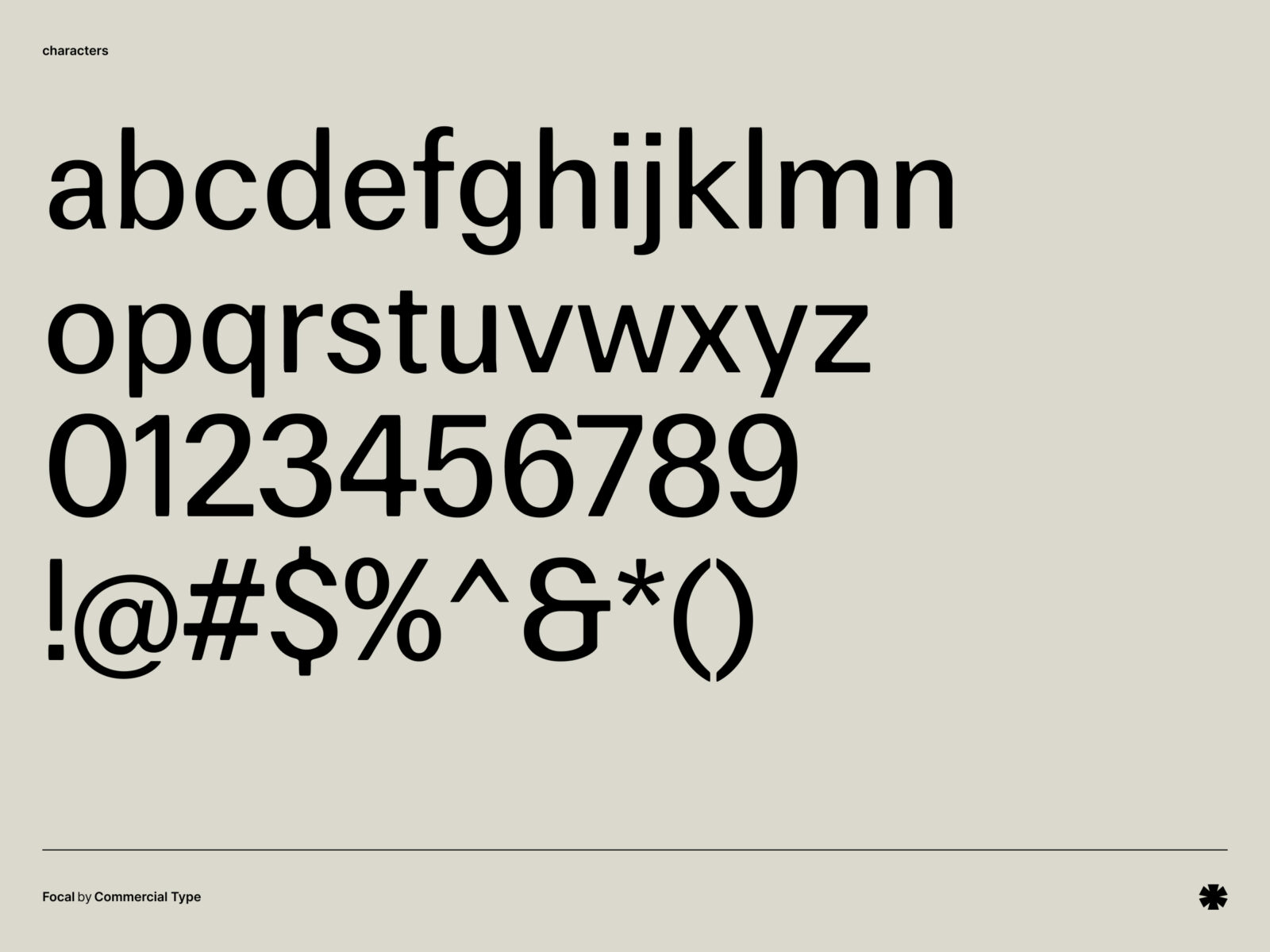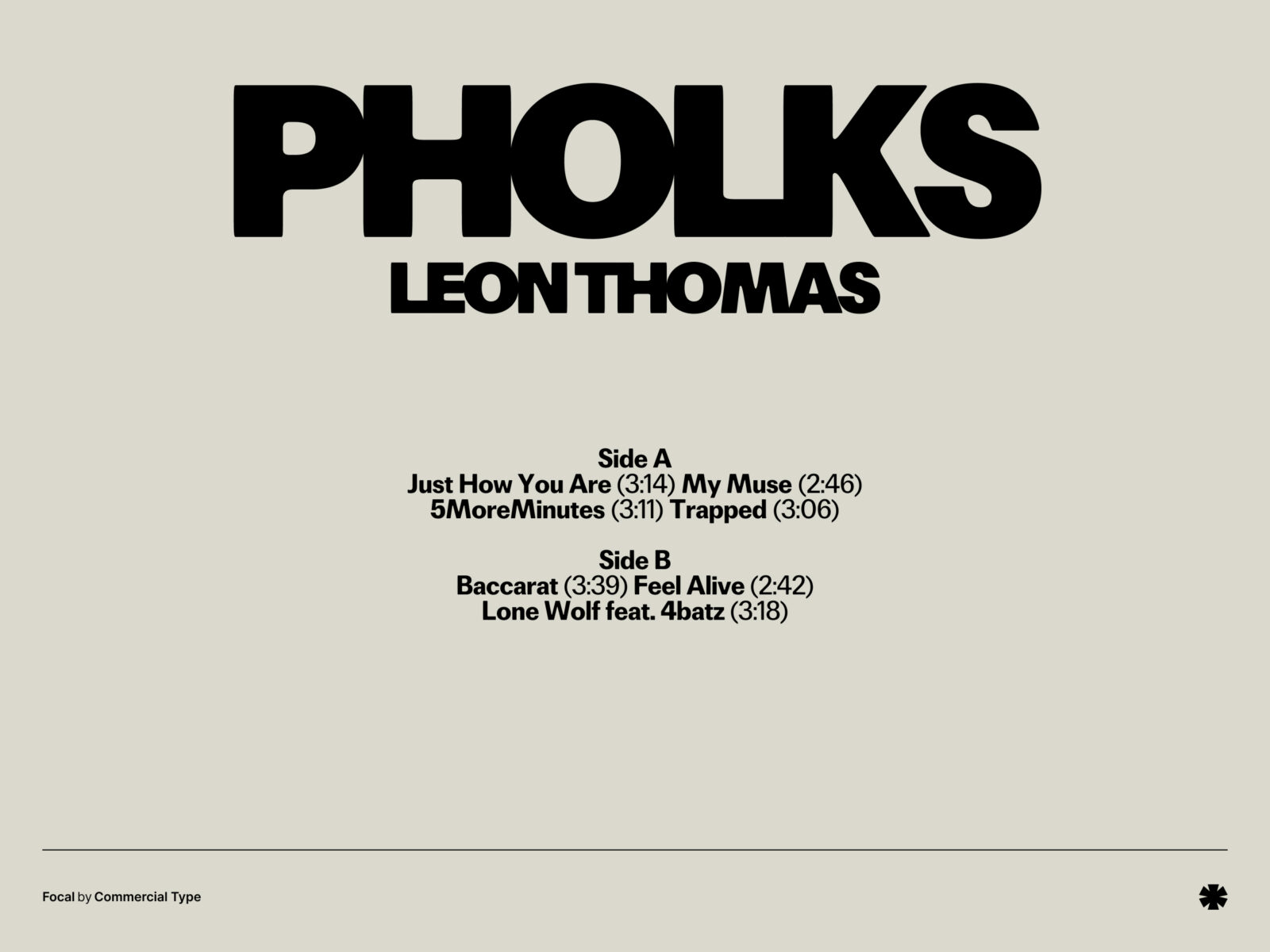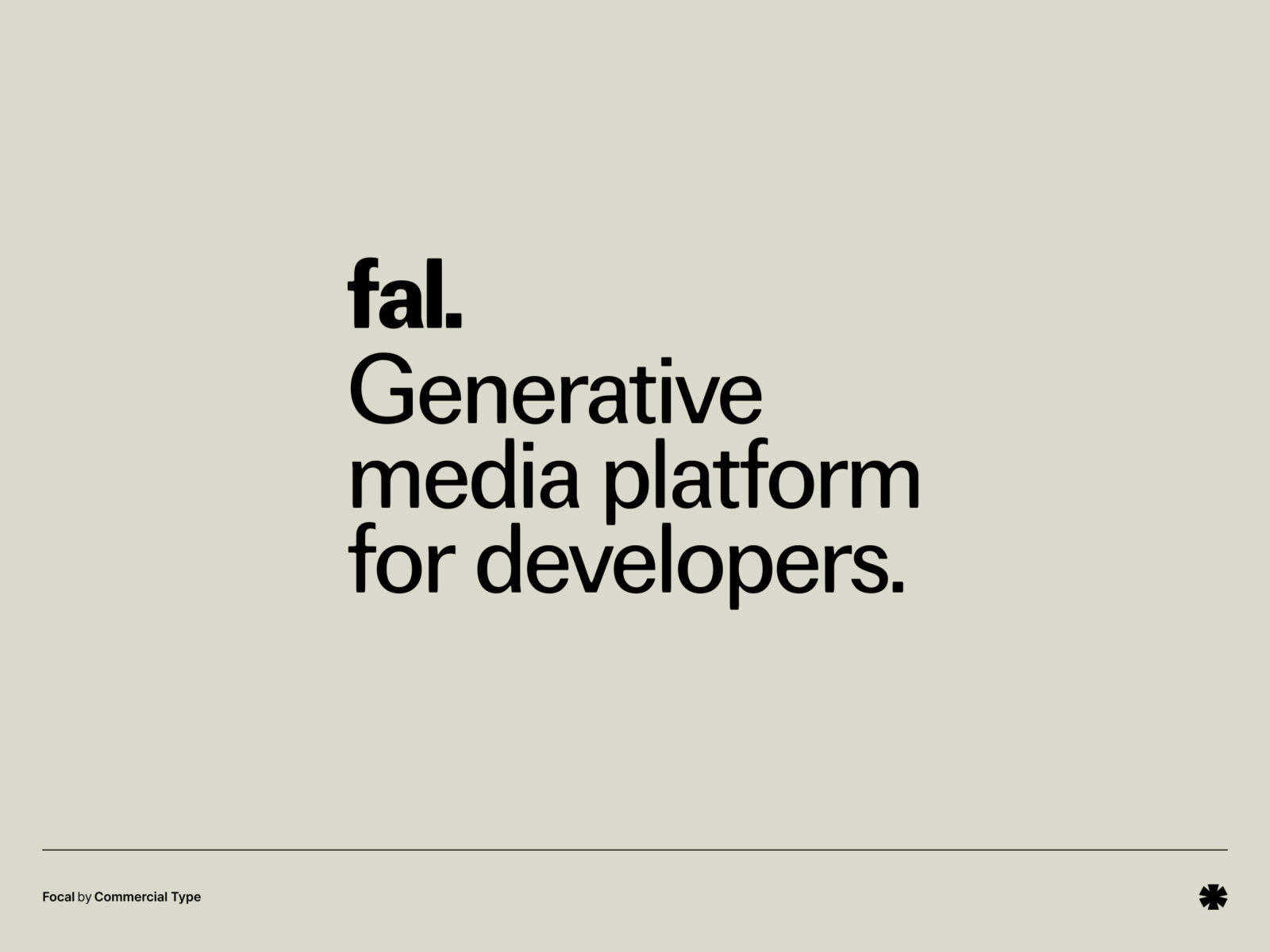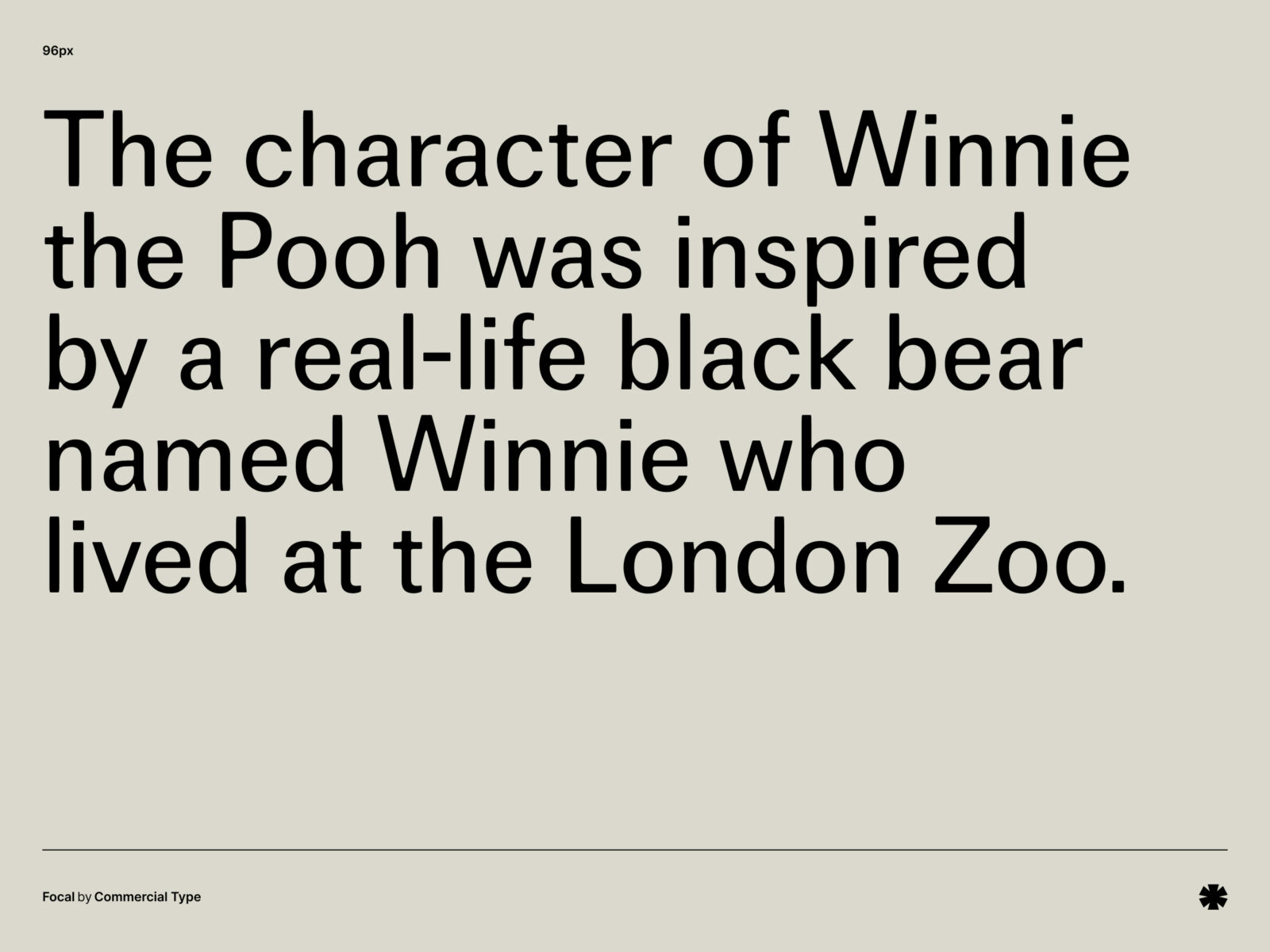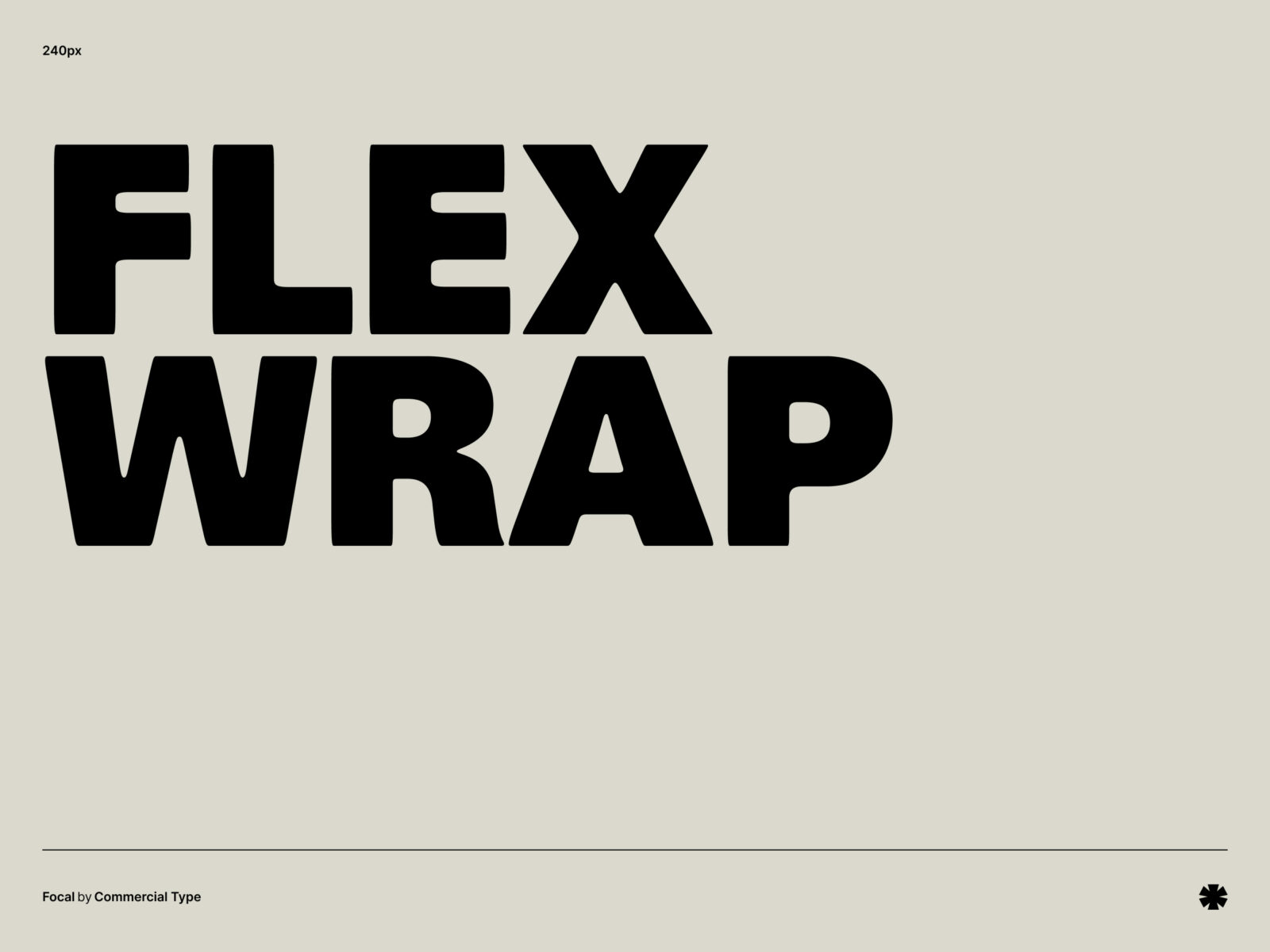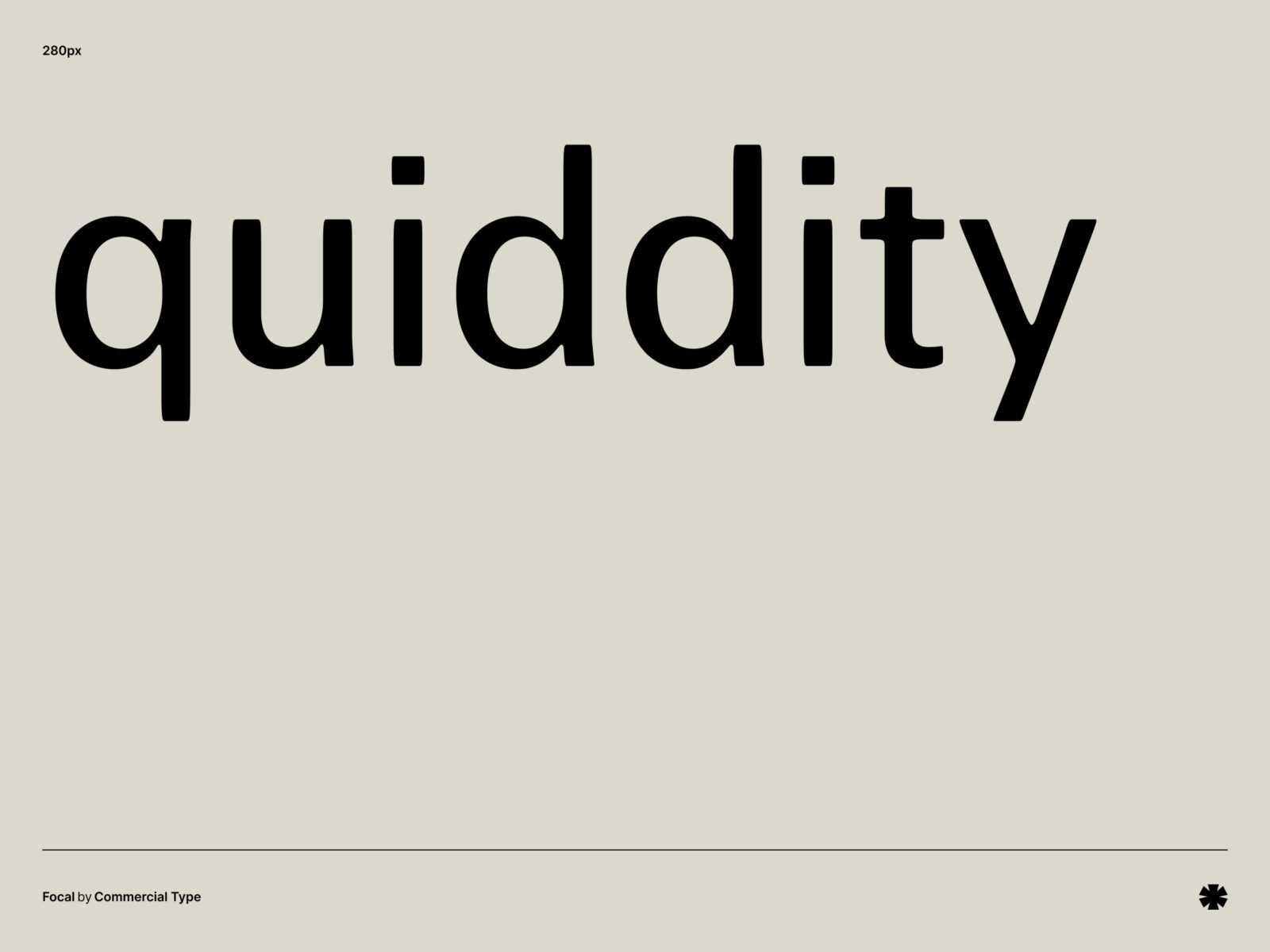
Focal feels like that misprint from the magazines where the ink dried in a cool way. It works just as well for laid-back branding as it does for everyday UI text.